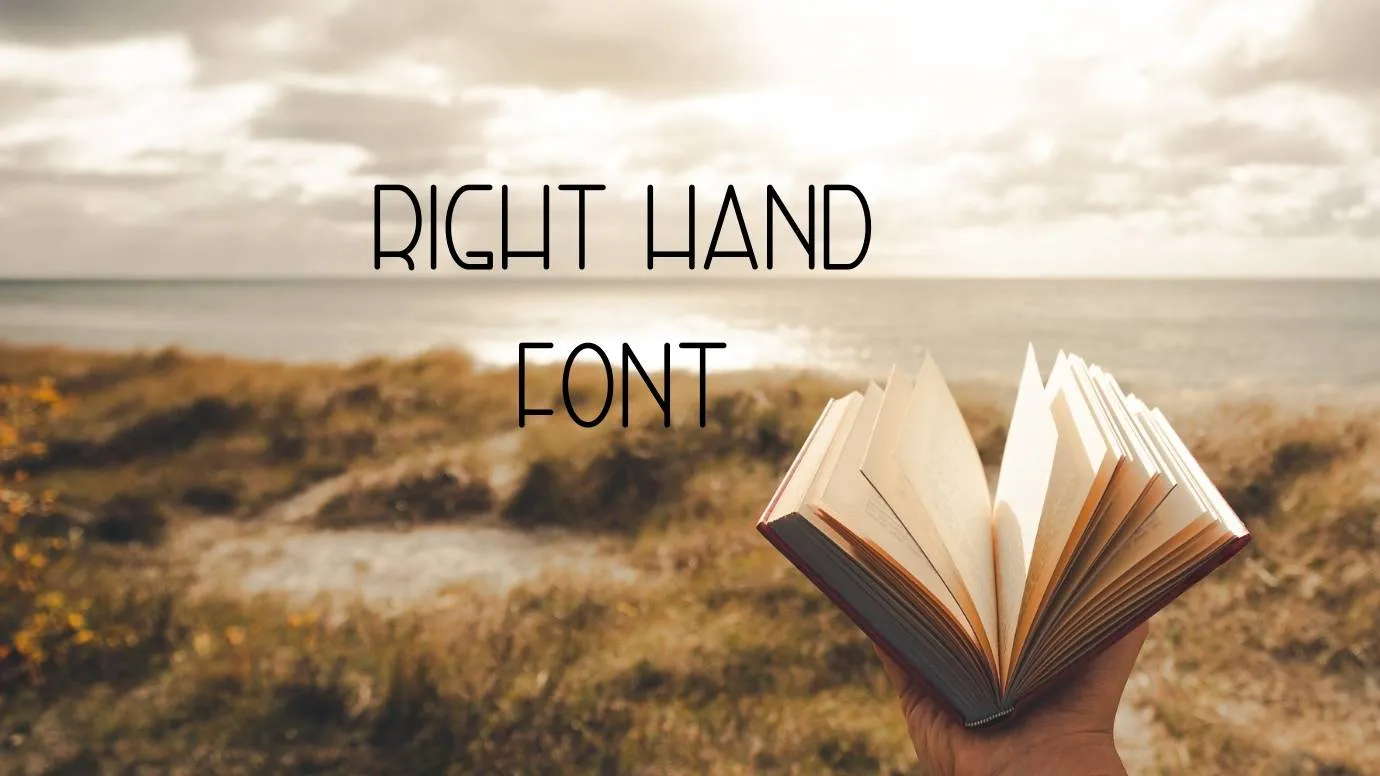
Right Hand Font Family
Right Hand is belonging to the sans-serif typeface family. It includes 20 fonts and 5 weights including regular, bold, italic, light, and hairline and each weight has its matching italics. It was designed and shared by Ibeydesign.
All these make this font very unique in the typeface market which can be utilized to add a powerful touch to your photography, social media posts, logos and brands, special events, stationery and labels, and much more.
Right Hand Font
NameRight Hand Font
DesignerIkrar Bey
FoundryIbeydesign